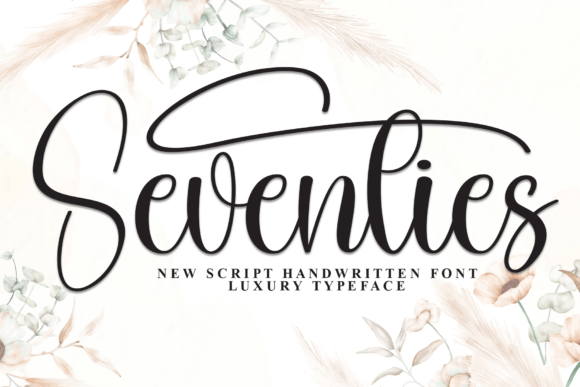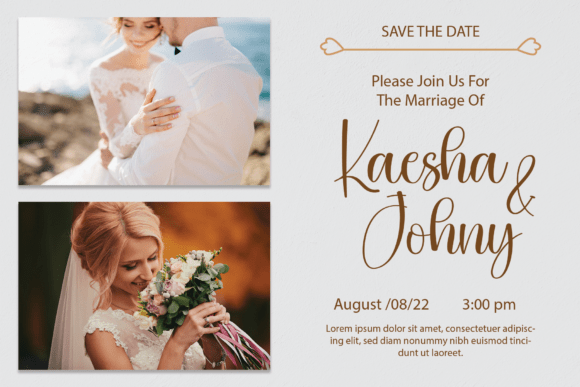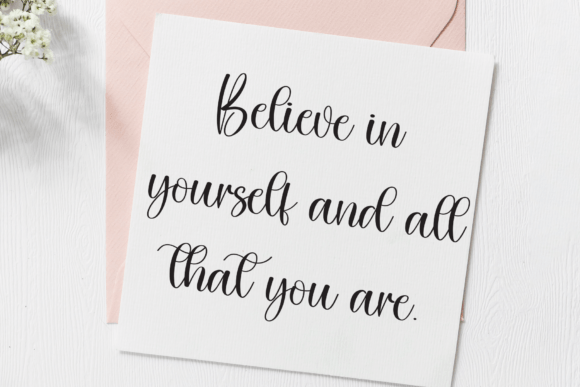
Seventies Font
About the Seventies Font
From logos to headlines, the Seventies Font is the perfect choice for making a lasting impression. A charming script handwritten font that brings a personal, elegant touch to your designs. With smooth curves, natural flow, and a slightly casual style, it feels like it was written with care, making it ideal for wedding invitations, personal branding, greeting cards, and lifestyle blog graphics. Its versatility shines in both romantic and modern aesthetics.
Seventies Font Usage Examples
Seventies Font Example